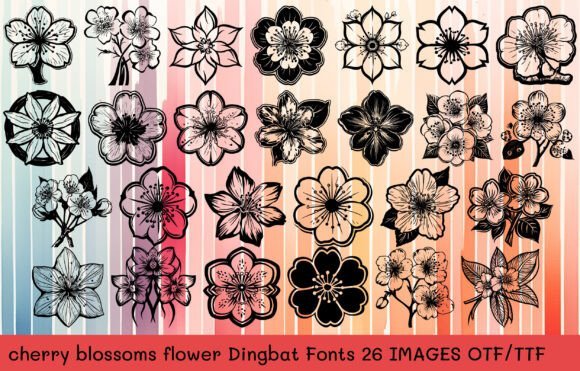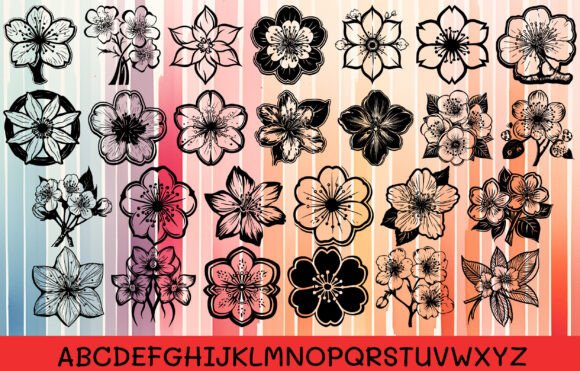
Unlocking the Beauty of Spring with the Cherry Blossoms Flower Font
Have you ever been captivated by the fleeting beauty of cherry blossoms, their delicate petals dancing in the spring breeze? As a designer, I’ve always been inspired by the elegance and whimsy of these flowers, and I’m excited to share with you a font that captures their essence – the Cherry Blossoms Flower Font.
This delightful font features 26 floral images, one for each letter of the alphabet, in both OTF and TTF formats. Whether you’re working on a craft project, designing a wedding invitation, or creating a custom logo, this font is sure to add a touch of springtime magic to your work. With its intricate details and charming style, the Cherry Blossoms Flower Font is a valuable addition to any designer’s toolkit.
Key Features of Cherry Blossoms Flower Font
- Font Style: A beautiful, hand-drawn font featuring cherry blossom flowers, perfect for adding a touch of elegance and whimsy to your designs.
- Unique Characteristics: The Cherry Blossoms Flower Font features intricate, hand-drawn illustrations of cherry blossoms, adding a touch of sophistication and charm to any design.
Cherry Blossoms Flower Font Review
Overall, I think the Cherry Blossoms Flower Font is a lovely, whimsical font that’s perfect for spring and summer projects. ✨ The delicate, hand-drawn style captures the beauty of cherry blossoms and adds a touch of elegance to any design.
- The font is available in a variety of weights and styles, making it easy to find the perfect fit for your design.
- The font may not be suitable for projects that require a more formal or professional tone.
- The font may not be as readable at very small sizes or in low-resolution images.
Overall, I think the Cherry Blossoms Flower Font is a great choice for designers who want to add a touch of whimsy and elegance to their projects. While it may have some limitations, it’s a beautiful font that’s sure to impress.
Use the Cherry Blossoms Flower Font for:
Wedding invitations, stationery, and other romantic designs.
Spring-themed designs, such as Easter or Mother’s Day cards.
Decorative text for social media graphics, blog posts, or website headers.